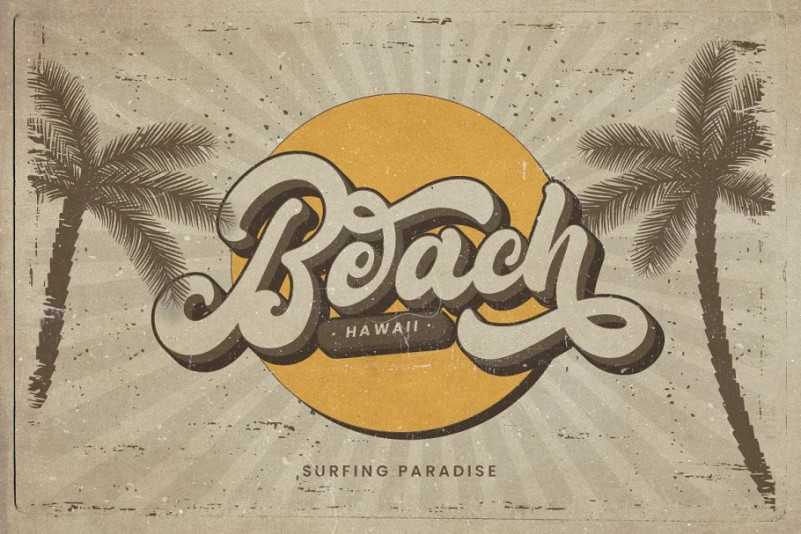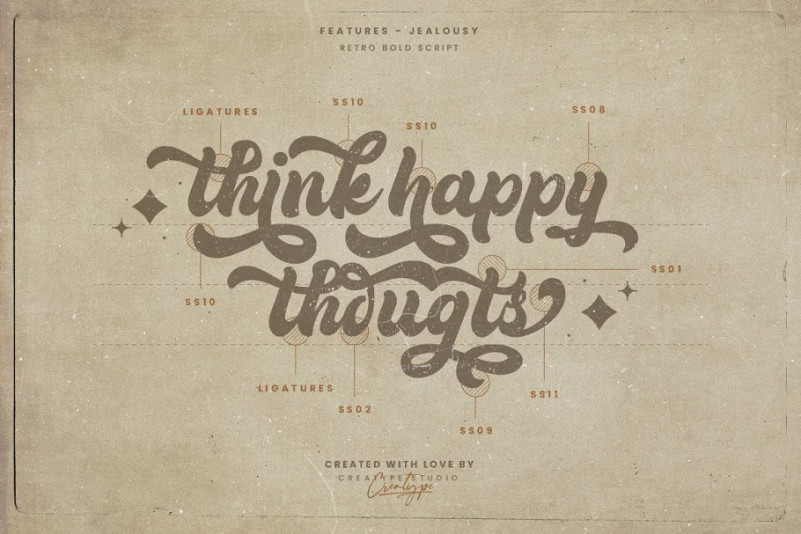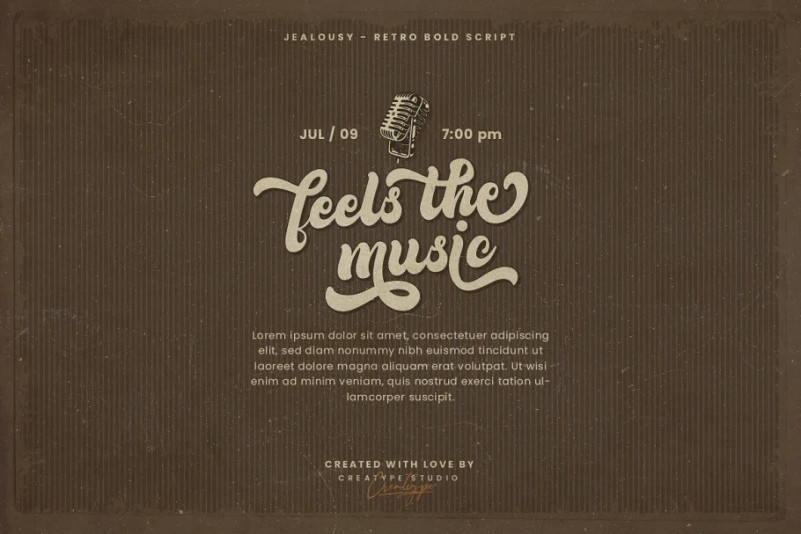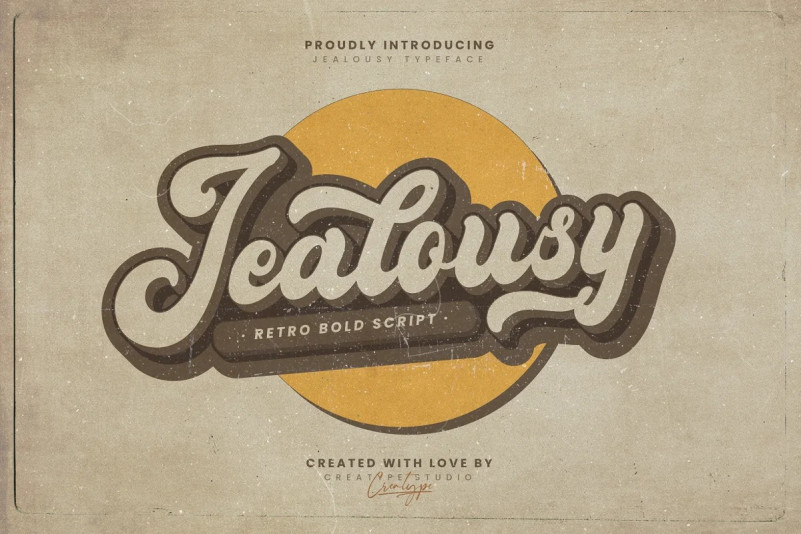
Jealousy Bold Script Font
This is a font with vintage style, equipped with alternate and ligature. It’s designed and shared by Creatype Studio. This font is perfect for branding projects, logo, wedding designs, social media posts, advertisements, product packaging, product designs, label, photography, watermark, invitation, stationery and any projects that need handwriting taste.